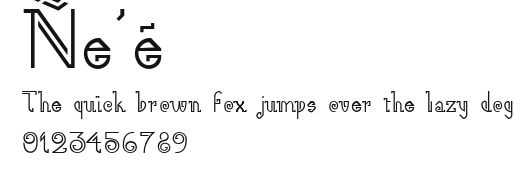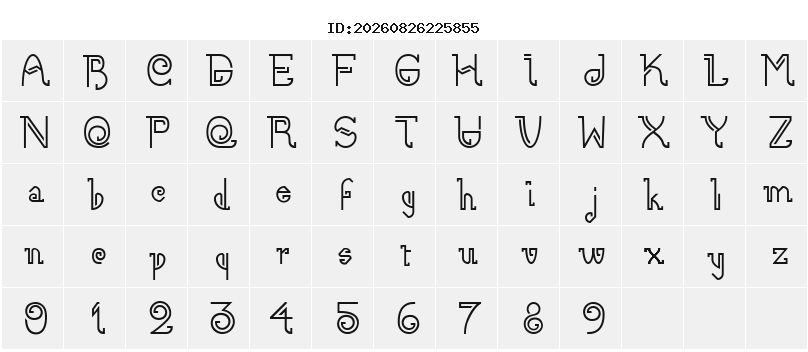
Ñe'ê Preview
• Font Name: Ñe'ê
• Full Font Name: Ñe'ê
• Designer: M. Micaela Karaman
• Manufacturer: M. Micaela Karaman
About Ñe'ê.ttf
Ñe'ê.ttf is a modern, elegant sans-serif font designed for ultimate readability and visual harmony. Perfect for branding, headlines, web design, and print materials.